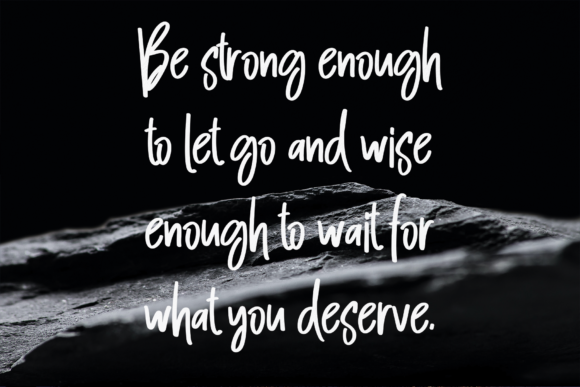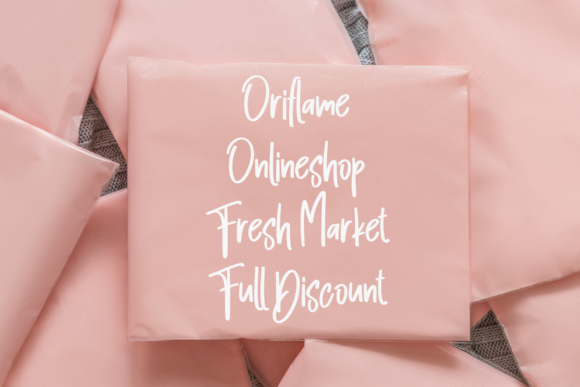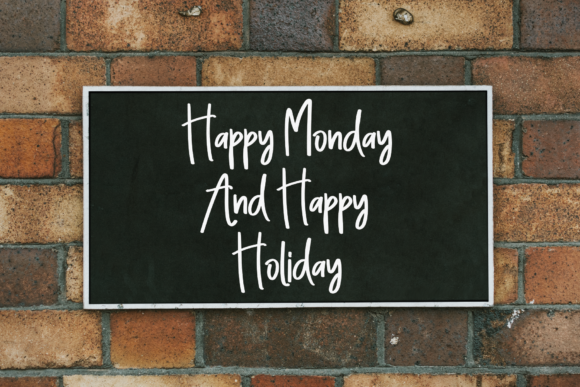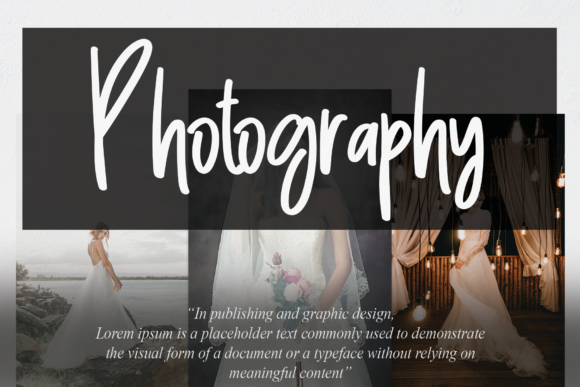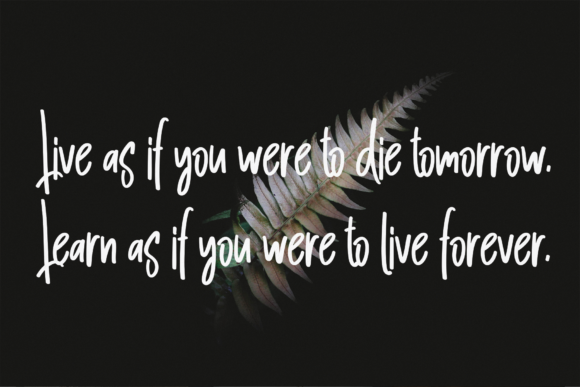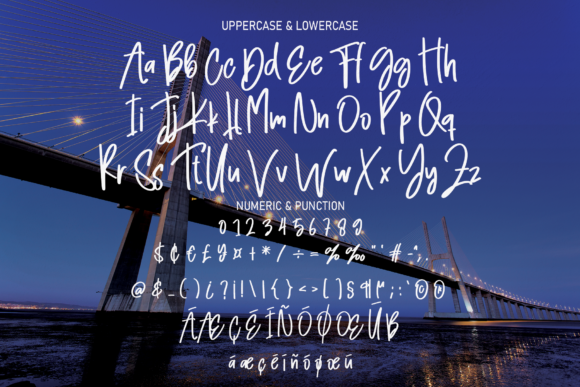
Discover the Perfect Blend of Elegance and Whimsy: The Brigeslow Font
As creatives, we’ve all been there – staring at a blank page, struggling to find the perfect font to bring our design to life. The search can be endless, but what if we told you that the solution is right in front of you? Enter the Brigeslow Font, a sweet and subtle handwritten font crafted with care for maximum results.
This beautiful font is designed to add a touch of elegance and class to any design project, making it a valuable asset for designers of all levels. Whether you’re working on a wedding invitation, a branding project, or a social media campaign, the Brigeslow Font is sure to impress. Its versatility and charm make it a must-have in any designer’s toolkit, and we can’t wait to share its secrets with you.
Bridgeslow Font Key Features
- Unique Characteristics: Bridgeslow Font features a unique blend of modern and vintage elements, with a distinctive italic style that adds a touch of elegance to any design.
Review of Bridgeslow Font
I’ve had the chance to work with Bridgeslow Font, and I must say it’s a beautiful addition to any design project. ✨ The font’s unique blend of modern and vintage elements makes it perfect for creating a unique visual identity. ✨ Its flexibility in use is impressive, whether you’re designing a book cover, a logo, or even a website.
Here are some of the things that I think work well in Bridgeslow Font:
- Unique aesthetic that sets it apart from other fonts
- Highly versatile, suitable for various design projects
- Well-crafted letterforms that make it easy to read
- Supports a wide range of languages
However, there are a few limitations that I’ve noticed:
- May not be the best choice for very small text sizes due to its intricate details
- Lack of bold weight options may limit its use in certain contexts
Overall, I think Bridgeslow Font is a great addition to any designer’s toolkit. While it may not be perfect, its unique style and versatility make it a valuable asset for any design project. ⚠️ Just be mindful of its limitations, and you’ll be able to get the most out of this beautiful font.
The Brigeslow Font is a great choice for:
- Designing invitations and event materials.
- Creating social media graphics and posts.
- Adding a touch of elegance to business documents and presentations.
Remember to experiment with different font sizes, colors, and styles to get the most out of the Brigeslow Font.